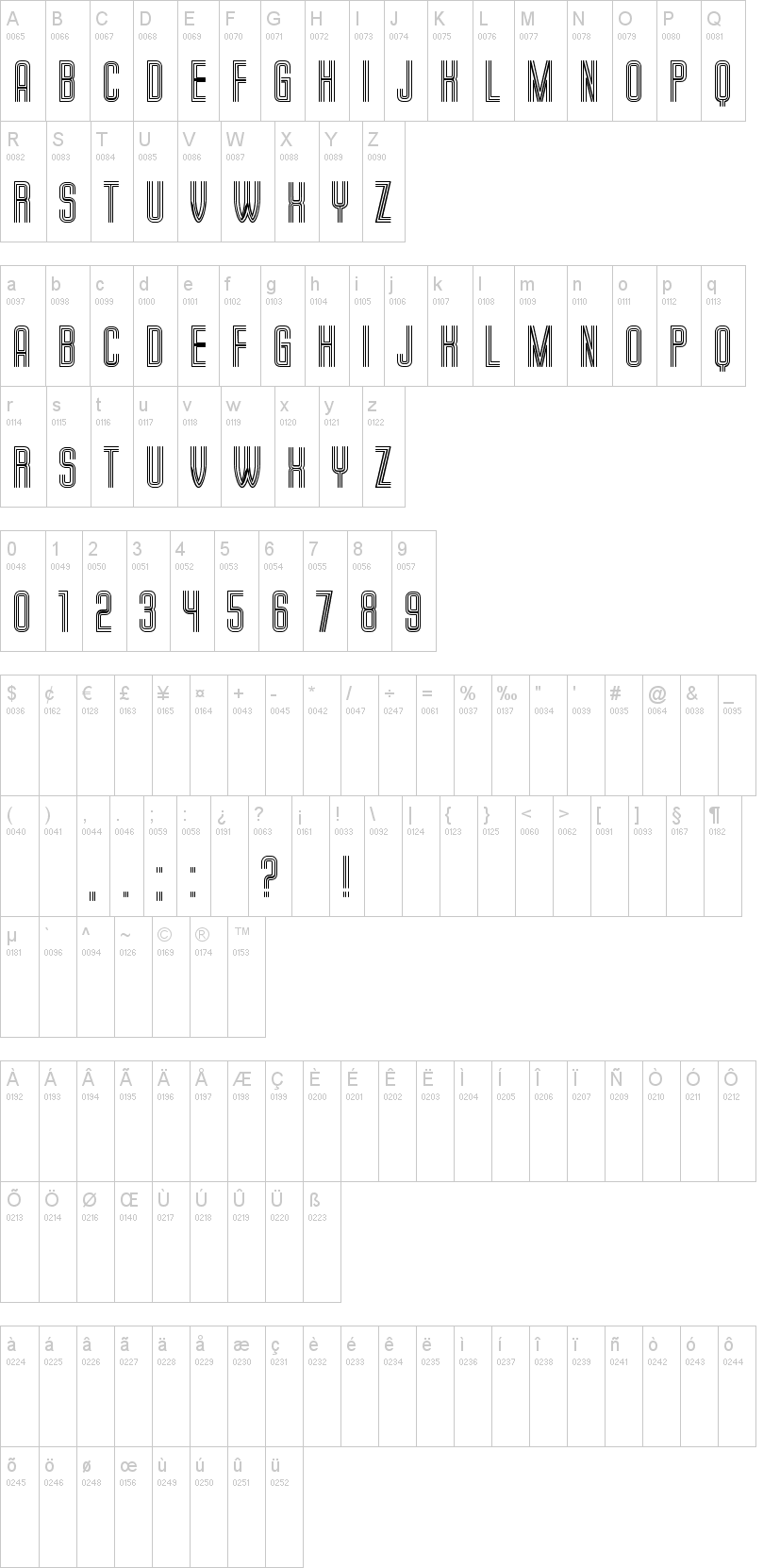
MilkandChocolate-Italic.ttfNote of the author"Milk and Chocolate" is awesome tri-lined font with a retro look. It is great for t-shirts, flyers, poster and more.
It comes in Regular and Italic variant.